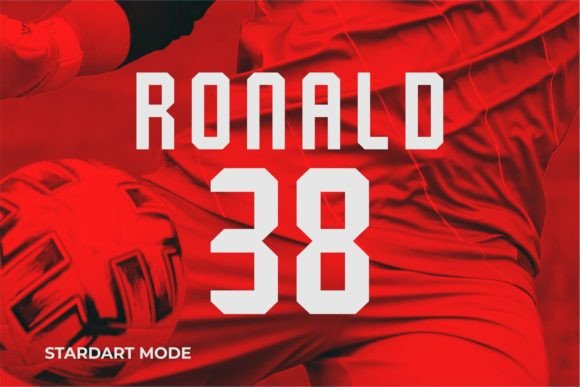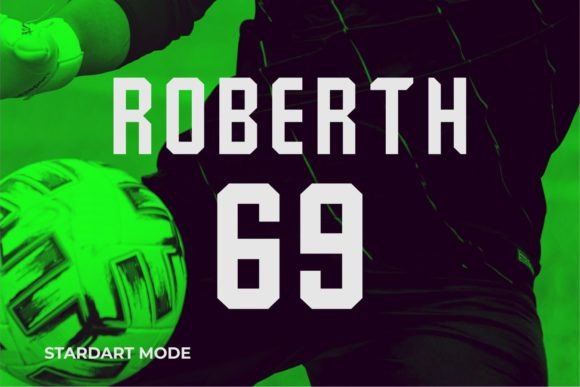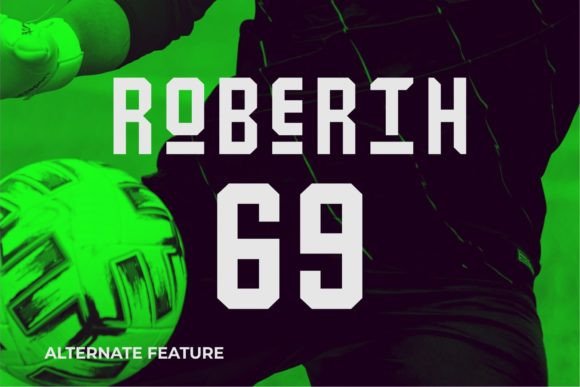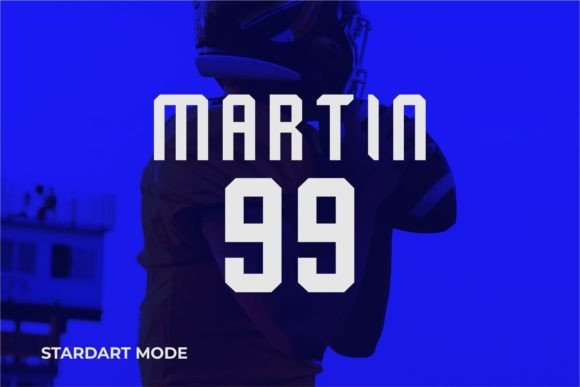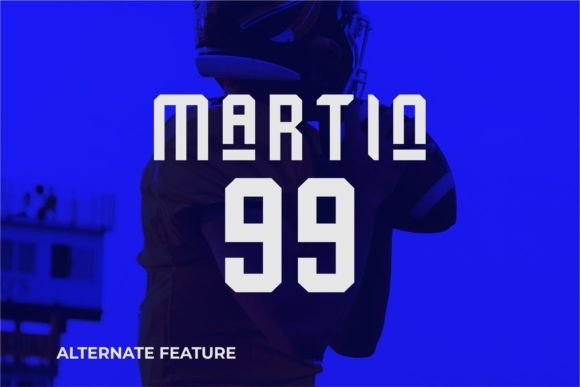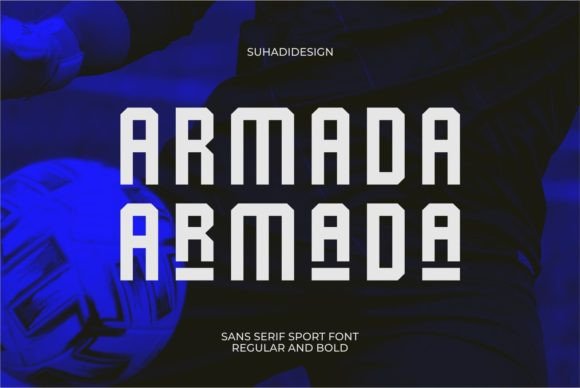
Introducing Armada Font: The Modern Sans-Serif Sport Font
The world of typography has just gotten a whole lot more exciting with the arrival of Armada Font, the newest sans-serif sport font that’s taking the design world by storm. This stylish font has already caught the attention of many designers, and for good reason. Armada Font is a game-changer, perfect for sportswear, logos, and various design projects that require a modern, elegant, and classy touch.
What is Armada Font?
Armada Font is a sans-serif font specifically designed to cater to the needs of designers looking for a modern and stylish font for their sportswear, logo, and design projects. Its clean lines, sleek curves, and contemporary style make it an instant favorite among designers and crafters. Whether you’re working on a jersey, sportswear, logo, or any other design project, Armada Font is the perfect choice.
Key Features of Armada Font
- Modern Stylish Style: Armada Font boasts a modern stylish style that’s perfect for designers looking to give their projects a fresh and contemporary look.
- Elegant and Classy: This font exudes elegance and class, making it suitable for high-end designs, branding, and publications.
- Versatile: Armada Font can be used for a wide range of projects, including jerseys, sportswear, logos, football, basketball, baseball, badminton, packaging, labels, magazines, designs, books, publications, brand names, business cards, social media, and more.
Why Choose Armada Font?
So, why should you choose Armada Font for your design projects? Here are just a few reasons:
- Improves Design Quality: Armada Font is designed to elevate the quality of your designs, giving them a professional and polished look.
- Enhances Branding: With its modern and stylish style, Armada Font can help enhance your brand’s image and make it stand out from the competition.
- Easy to Read: This font is easy to read, making it perfect for body text, headings, and titles.
Use Cases for Armada Font
Armada Font is a versatile font that can be used for a wide range of projects, including:
- Jerseys and Sportswear: Use Armada Font to create stylish and modern jerseys and sportswear that will make your team or brand stand out.
- Logos and Branding: This font is perfect for creating logos, business cards, and other branding materials that require a modern and elegant touch.
- Magazines and Publications: Armada Font can be used for magazines, books, and other publications that require a clean and stylish font.
- Packaging and Labels: Use this font to create eye-catching packaging and labels that will make your product stand out on store shelves.
In conclusion, Armada Font is a game-changing sans-serif sport font that’s perfect for designers and crafters looking for a modern, elegant, and classy font for their projects. With its versatile style, easy readability, and wide range of use cases, Armada Font is sure to become a favorite among designers. Whether you’re working on a jersey, sportswear, logo, or any other design project, Armada Font is the perfect choice. So why wait? Try Armada Font today and take your designs to the next level!